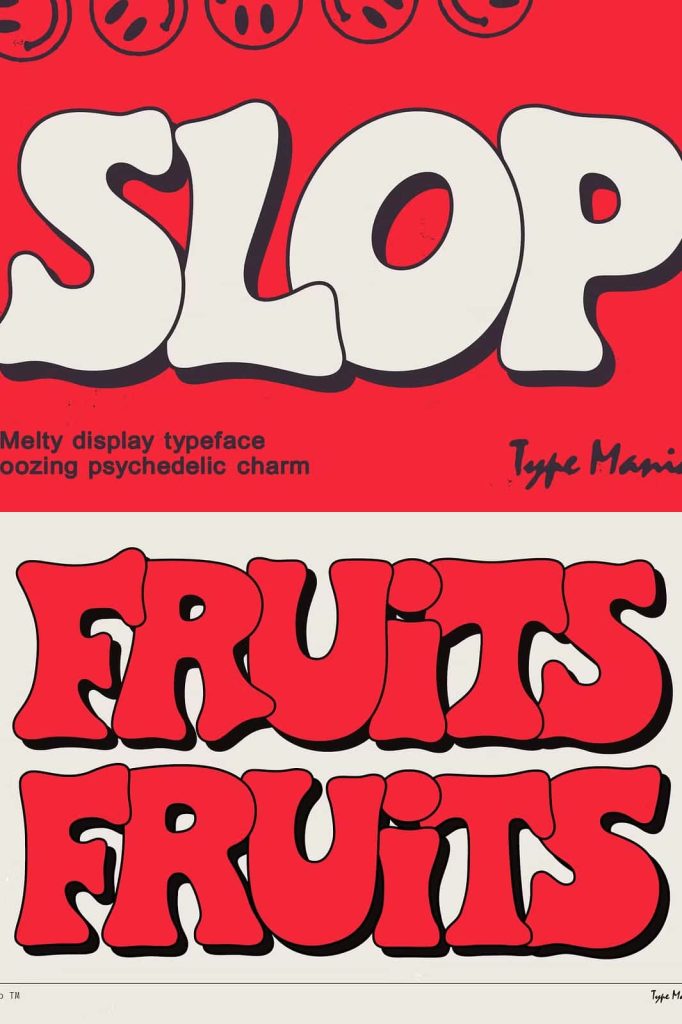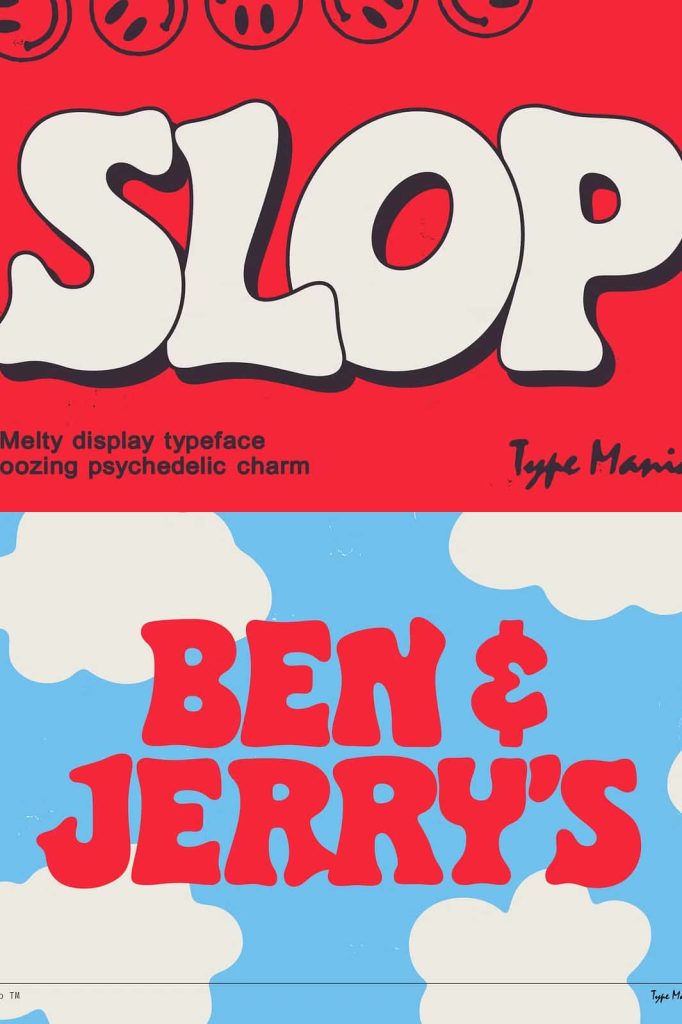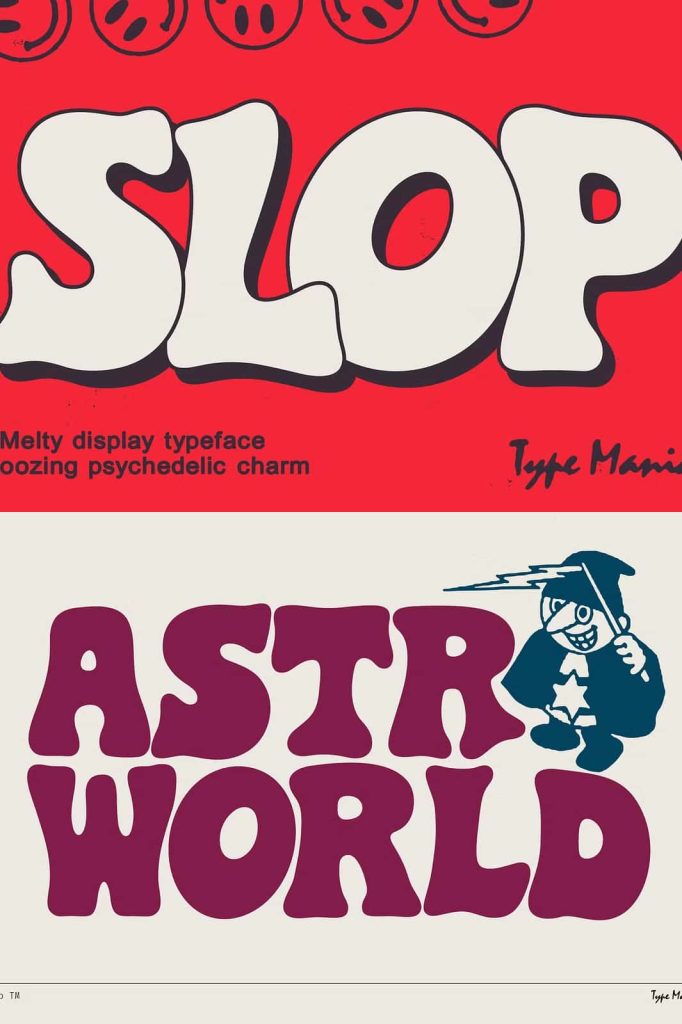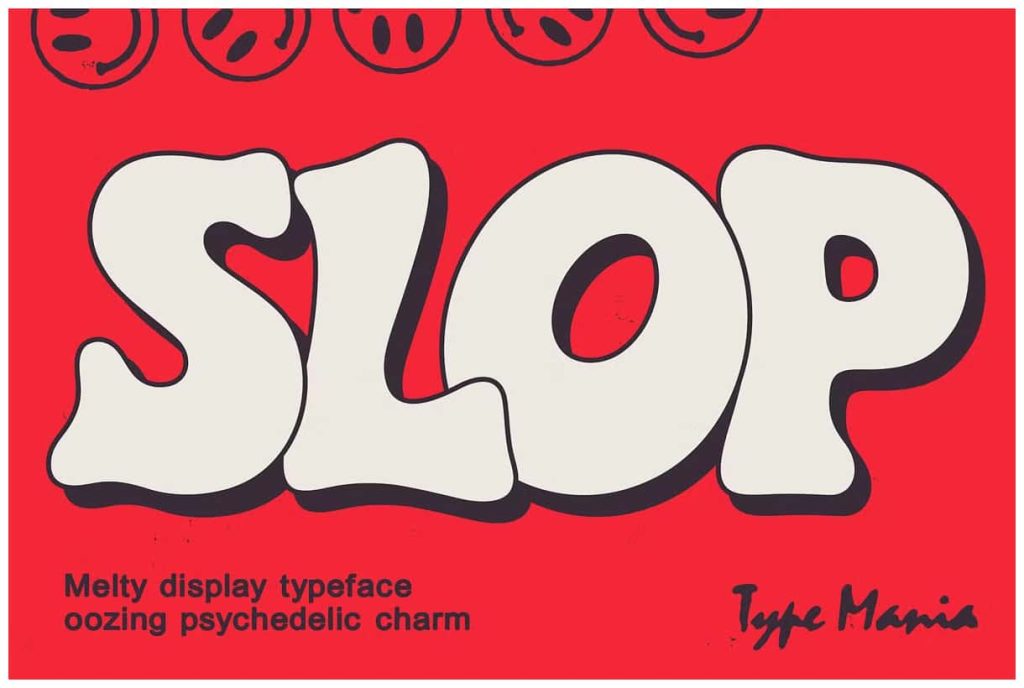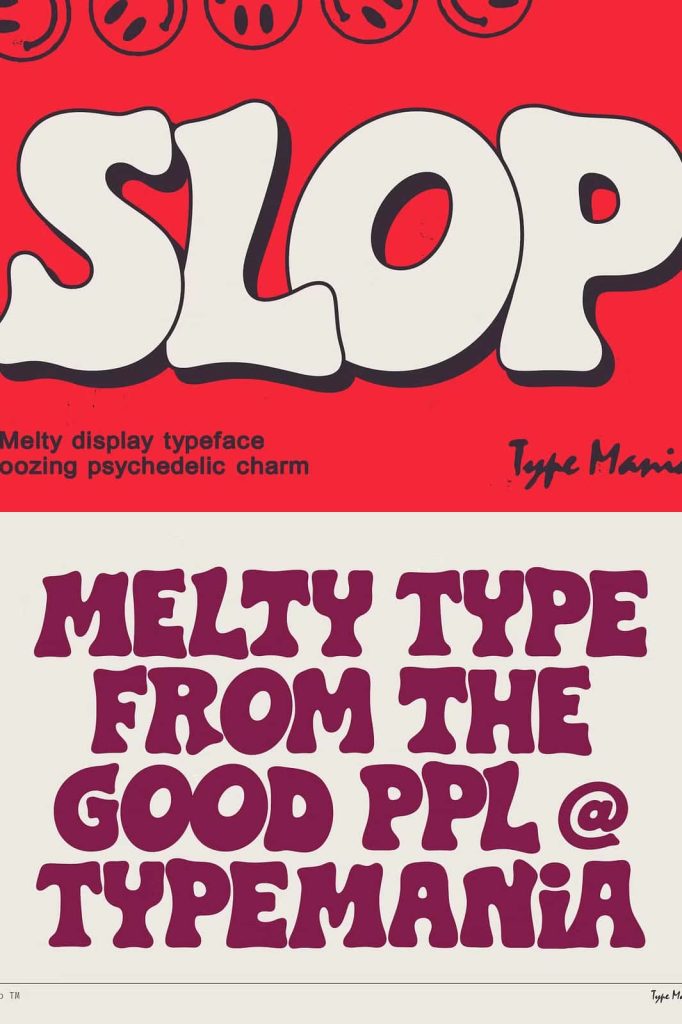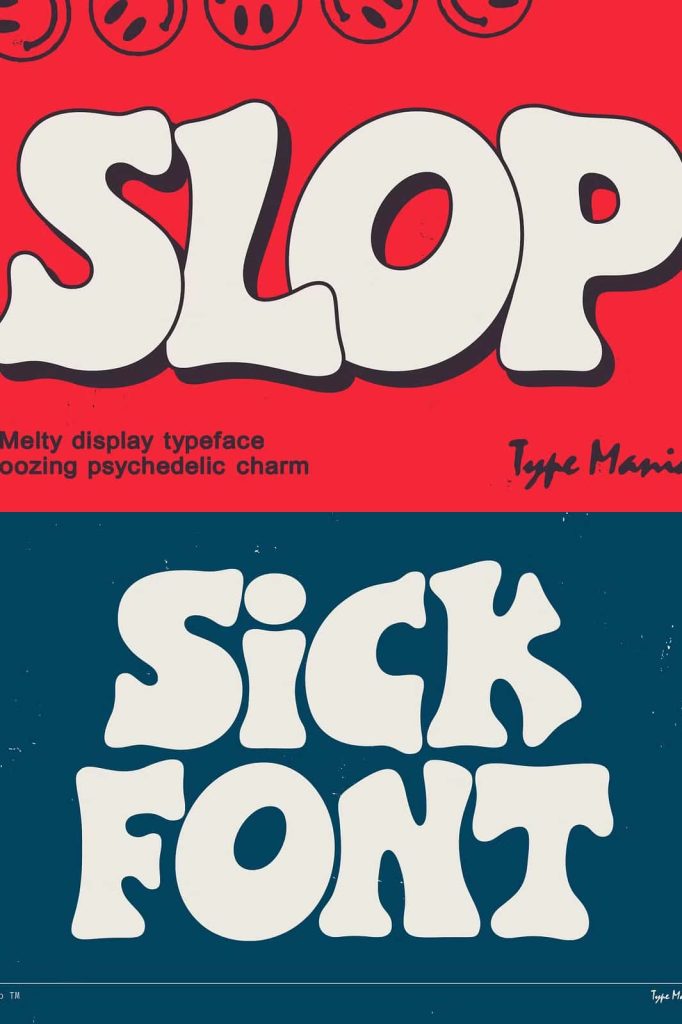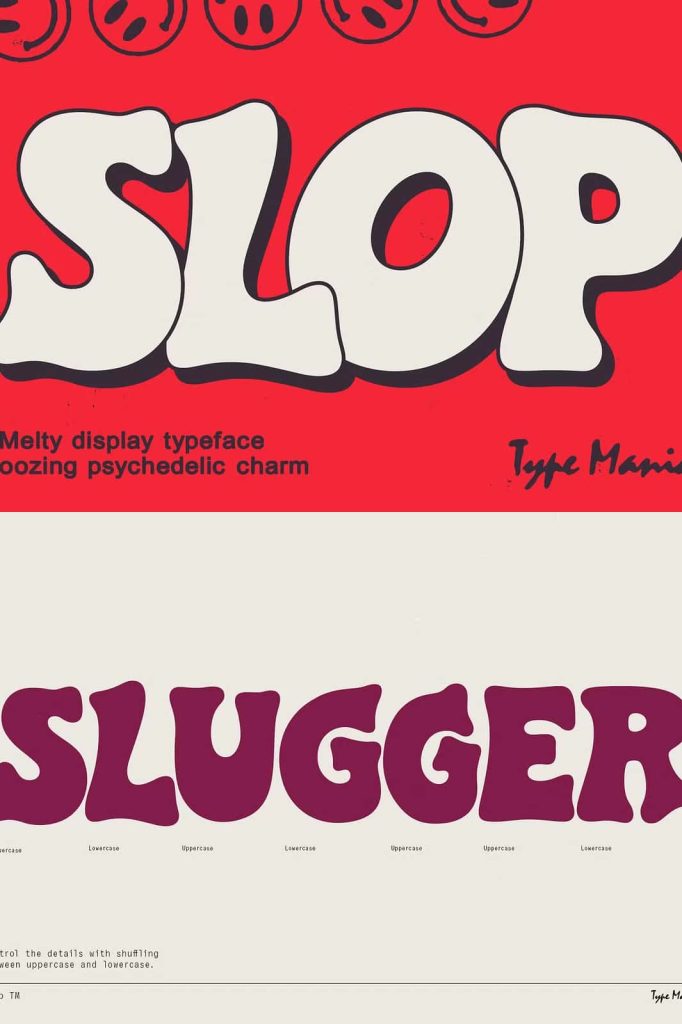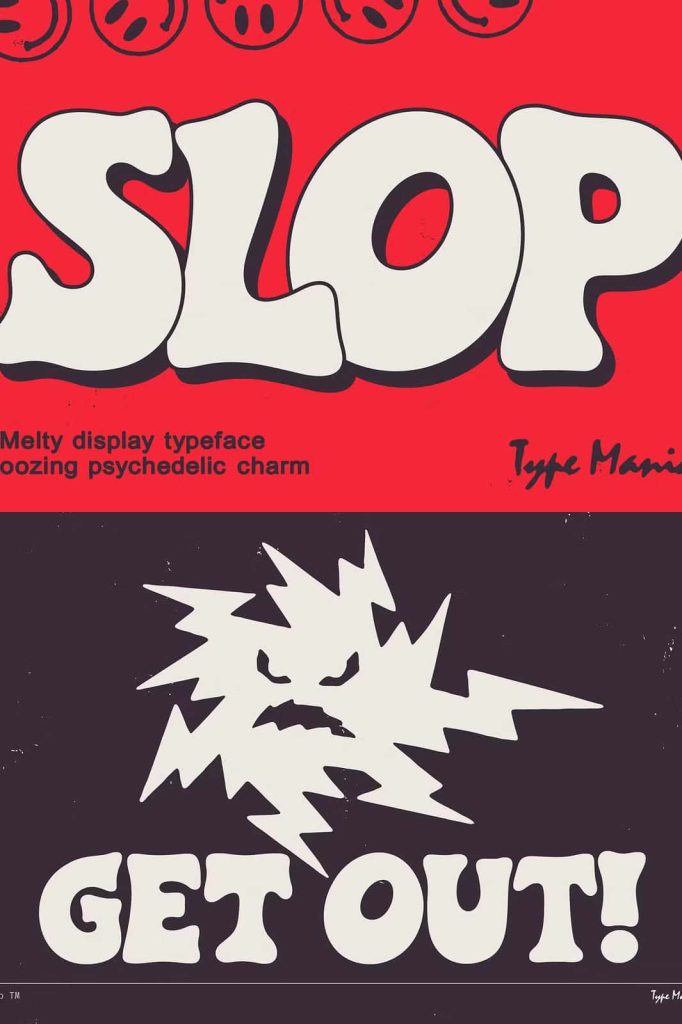
Slop TM Font: Bold, Melty, and Unapologetically Psychedelic
Slop TM Font is a chunky, melty display typeface that bursts with psychedelic energy and visual personality. Designed for fearless creatives, this font oozes with character, attitude, and vintage-inspired charm. Built to dominate headlines, posters, and branding materials, Slop TM brings a bold, rebellious aesthetic to any design that demands attention. Every curve and contour has been crafted to make a statement — vibrant, fluid, and unforgettable.
A Typeface That Demands Attention
Slop TM isn’t made to blend in. It’s made to stand out. With its thick, dripping letterforms and retro-inspired flow, this typeface channels the free-spirited energy of 1960s and 1970s psychedelia while keeping a fresh, modern edge. It’s the perfect choice for designers who want to break conventions and create visual impact that lingers. Whether used in digital media or print, Slop TM instantly grabs the viewer’s eye and keeps it there.
Chunky, Melty, and Full of Personality
The defining feature of Slop TM Font is its deliciously melty structure. Each character feels alive — fluid yet powerful. The bold thickness of the strokes makes it ideal for headline typography, logo design, and statement branding. It’s not just a font; it’s an artistic voice that drips with creativity. Its playful irregularity and rich visual weight give your design a hand-crafted, expressive feel that’s impossible to ignore.
Perfect for Posters, Branding, and Editorial Design
Slop TM was built for the big stage. It thrives in posters, album covers, product packaging, and editorial layouts where design is meant to be seen and remembered. When used in branding, it injects an instant sense of personality and boldness into your visual identity. The font’s groovy, melting aesthetic adds a unique twist that separates your project from ordinary minimalism. It’s equally at home in fashion campaigns, music festival graphics, or magazine spreads that celebrate creativity and rebellion.
Inspired by Psychedelic and Retro Design
The creative roots of Slop TM Font trace back to the psychedelic art movement that shaped the visual language of the 1960s. The flowing shapes and bold silhouettes pay homage to vintage poster art and analog printing styles. Yet, this font reinvents that aesthetic for the modern era — refined enough for today’s digital workflows, but still raw and expressive in spirit. It captures that perfect balance between nostalgia and innovation.
Built for Impact and Expression
Every design decision behind Slop TM was made with one goal: maximum impact. The heavy letterforms command attention without needing embellishment. The smooth melting effect gives each character a rhythmic, hypnotic quality that’s visually satisfying. When paired with vivid colors or minimalist layouts, it becomes the focal point of the entire design. Slop TM encourages designers to experiment, play, and push creative boundaries with confidence.
Easy to Use, Hard to Forget
Despite its dramatic appearance, Slop TM remains remarkably versatile. It’s easy to apply in both print and digital projects, maintaining clarity and character across scales. Use it for event posters, branding systems, social media graphics, or magazine covers — anywhere your message deserves to be bold and expressive. Its thick strokes make it ideal for layering effects, gradients, and experimental typography treatments that stand out in any medium.
Why Choose Slop TM Font
- Bold and Expressive: A thick, melting display font that grabs attention instantly.
- Psychedelic Energy: Inspired by retro art and 1970s poster design.
- Perfect for Display: Ideal for logos, headlines, packaging, and editorial use.
- Creative Freedom: Encourages experimental and artistic visual expression.
Choosing Slop TM Font means choosing creativity without restraint. It’s the perfect tool for designers who want to make a visual statement — loud, proud, and dripping with personality. Every project becomes a work of art that stands apart from the ordinary. With Slop TM, your words don’t just communicate; they perform.
Make Every Design Unforgettable
In a world flooded with predictable typography, Slop TM Font brings back the art of visual expression. It’s bold, eccentric, and full of energy — a typeface that refuses to be silent. Whether you’re designing an album cover, a brand campaign, or a daring editorial spread, Slop TM delivers that unforgettable punch your audience won’t forget. Let your designs melt, flow, and shine with the bold, psychedelic spirit of Slop TM.